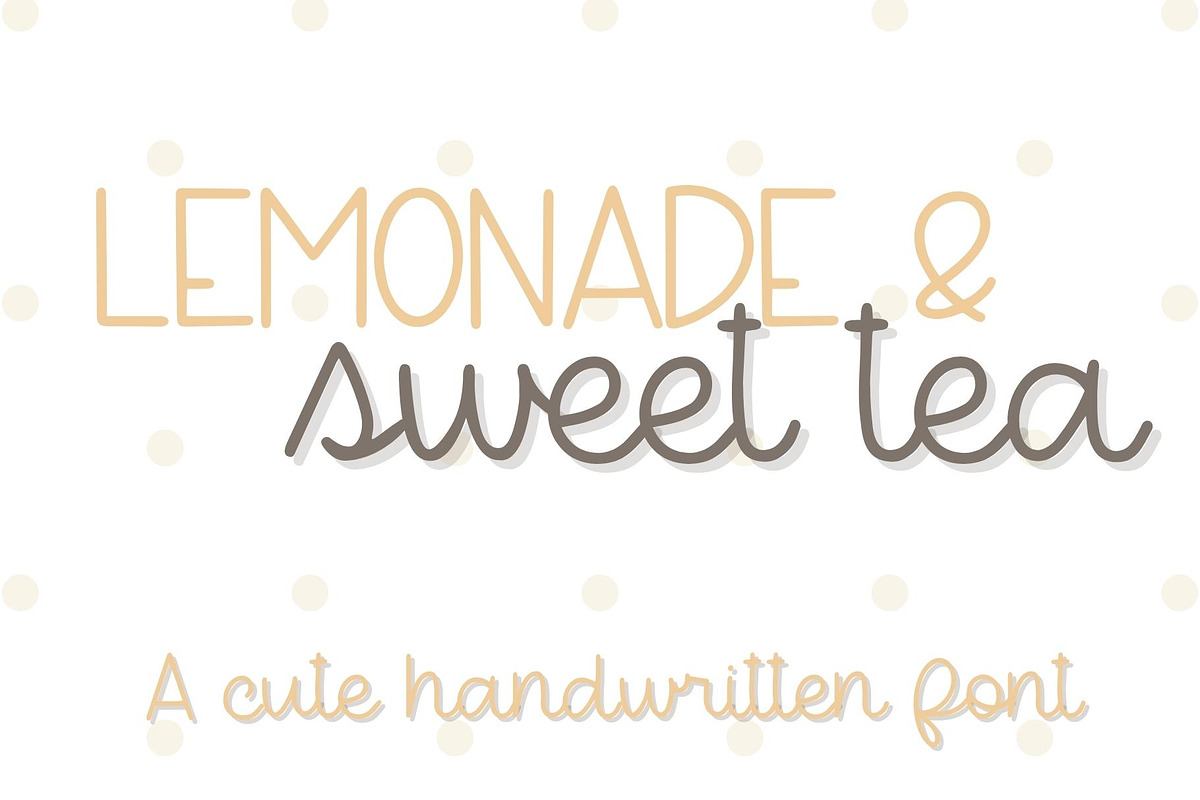
Lemonade and Sweet Tea, Cute Font Free Download
Bring a splash of southern charm and sweetness to your designs with Lemonade and Sweet Tea, Cute Font Free Download. This adorable and bubbly typeface is perfect for kids’ projects, DIY crafts, party invitations, home décor signs, and anything that needs a warm, friendly feel.
Featuring rounded edges, playful curves, and a hand-lettered look, this font radiates charm and approachability. It includes uppercase and lowercase letters, numbers, and punctuation—great for testing cheerful, eye-catching layouts in both digital and print designs.
Whether you're crafting summer-themed graphics or cozy farmhouse vibes, this font delivers joy with every letter. For commercial use, don’t forget to purchase the appropriate license. Download Lemonade and Sweet Tea, Cute Font Free Download today and brighten up your creative projects with a smile.